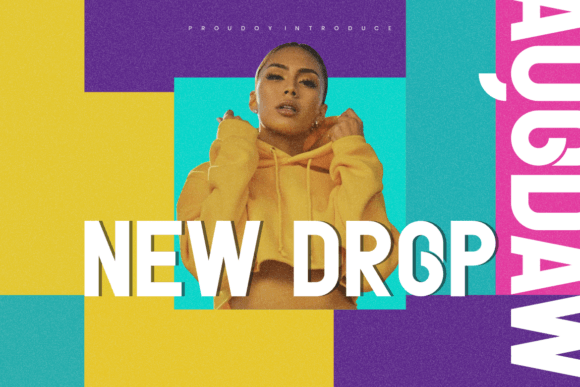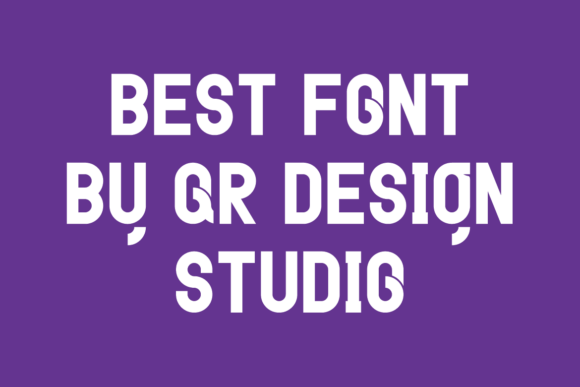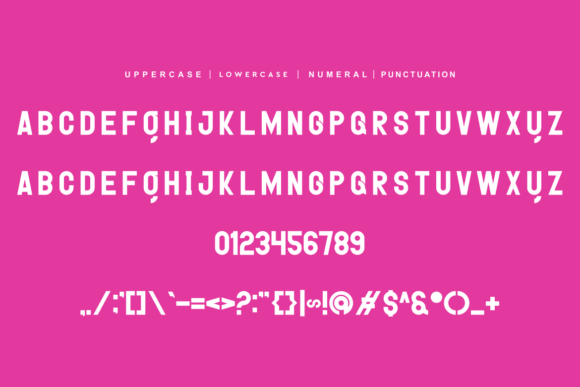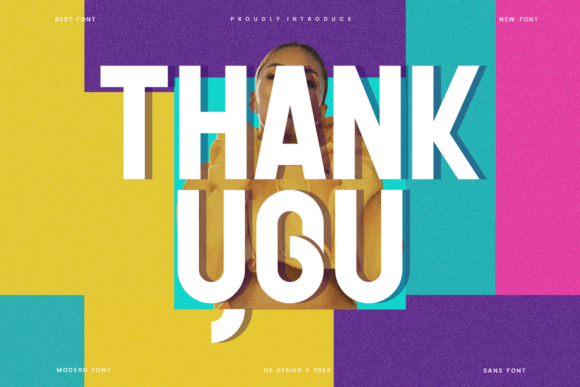
Ayodaw Font: The Ultimate Choice for Bold and Authentic Designs
In the world of typography, fonts play a crucial role in conveying the tone and personality of a brand. For designers and crafters, finding the perfect font that embodies their creative vision can be a daunting task. However, if you’re looking for a bold and authentic sans serif font that can elevate your branding projects, look no further than Ayodaw Font.
What is Ayodaw Font?
Ayodaw Font is a modern sans serif font that exudes confidence and sophistication. Its clean lines, precise curves, and bold strokes make it an excellent choice for designers who want to create a lasting impression. The font’s authentic feel and versatility make it suitable for a wide range of applications, from logos and sports branding to packaging and advertising.
Key Features of Ayodaw Font
- Bold and Authentic: Ayodaw Font boasts a bold and authentic look that can instantly grab attention. Its unique character set and carefully crafted letterforms ensure that your designs stand out from the crowd.
- Sans Serif: The font’s sans serif design makes it perfect for modern and minimalist designs. The clean lines and lack of decorative flourishes give Ayodaw Font a sleek and contemporary feel.
- Versatile: Ayodaw Font is incredibly versatile and can be used for a wide range of projects, including logos, branding, packaging, and advertising.
- Easily Readable: Despite its bold nature, Ayodaw Font is easily readable, making it perfect for body text and headlines.
Use Cases for Ayodaw Font
Ayodaw Font is an excellent choice for various design projects, including:
- Logo Design: Create a lasting impression with Ayodaw Font’s bold and authentic look. Use it to craft a unique logo that represents your brand’s personality.
- Sports Branding: The font’s energetic and dynamic feel makes it perfect for sports branding, including team logos, jerseys, and advertising materials.
- Packaging Design: Use Ayodaw Font to create eye-catching packaging designs that stand out on store shelves.
- Advertising: The font’s bold and attention-grabbing nature makes it ideal for advertising campaigns, including billboards, print ads, and digital banners.
Benefits of Using Ayodaw Font
By choosing Ayodaw Font for your design projects, you can enjoy several benefits, including:
- Unique and Memorable Designs: Ayodaw Font’s bold and authentic look ensures that your designs are unique and memorable.
- Improved Brand Recognition: Consistency is key to building a strong brand identity. Ayodaw Font’s versatility allows you to maintain consistency across various design projects.
- Enhanced Creativity: The font’s clean lines and precise curves provide a solid foundation for creative experimentation and innovation.
In conclusion, Ayodaw Font is an exceptional choice for designers and crafters looking for a bold and authentic sans serif font. Its versatility, readability, and unique character set make it suitable for a wide range of applications. Whether you’re working on a logo design, sports branding, packaging, or advertising project, Ayodaw Font is sure to elevate your designs and leave a lasting impression.